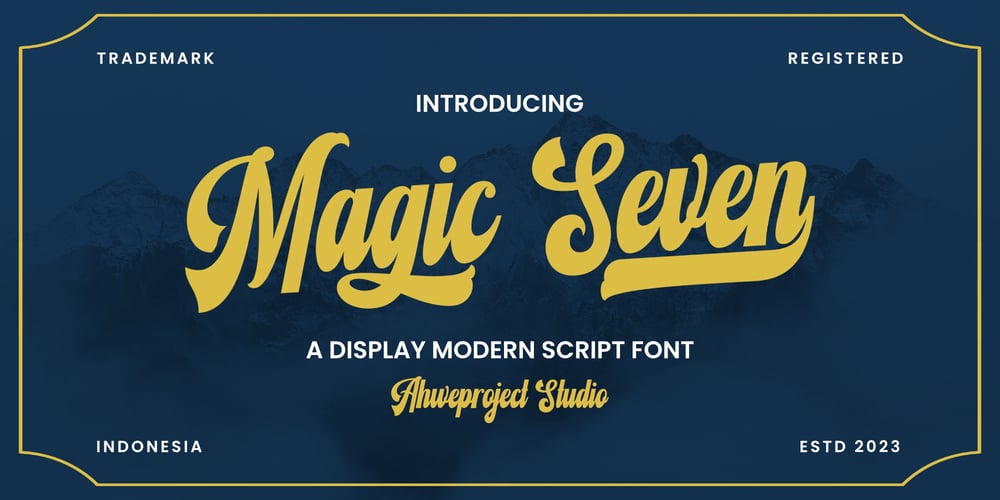
Magic Seven
Magic Seven font
Magic Seven Font Family was designed by Dida Ahluddin and published by ahweproject. Magic Seven contains 2 styles and family package options. Magic Seven is a stunning display script font that seamlessly blends classic and modern design elements to create a unique and stylish typeface. This font perfectly made to be applied especially in logo, and the other various formal forms such as invitations, labels, logos, magazines, books, greeting / wedding cards, packaging, fashion, make up, stationery, novels, labels or any type of advertising purpose.